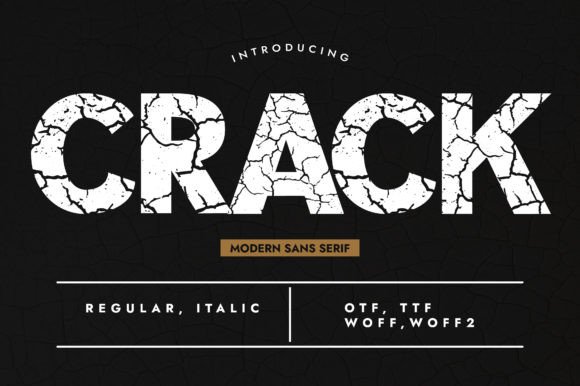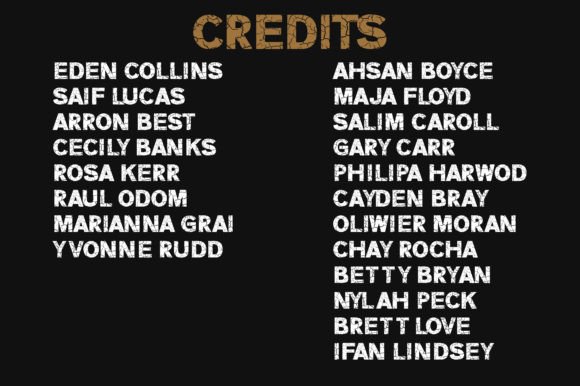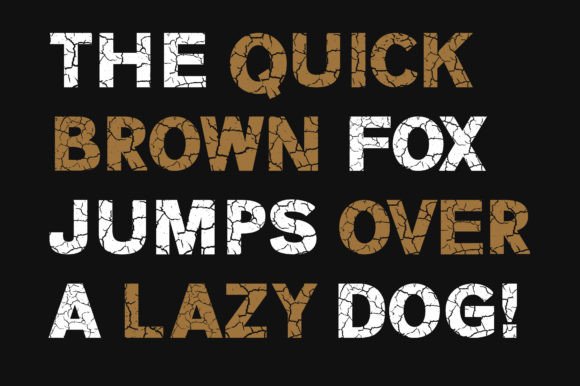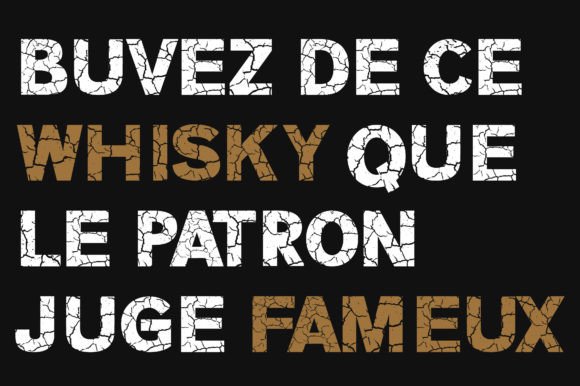
Crack Font: Grungy Sans Serif for Bold Headlines & Poster Designs
About the Crack Font
We are excited to introduce Crack Font, a must-have typeface for any serious designer. Crack is a modern, revolutionary, and textured sans serif typeface. The grungy textures applied to its glyphs give it a huge power to grab the eye’s attention. for that reason it can be used in heading, large scales banner, posters, etc. it can suit many themes such as action movie titles, games titles, posters, horror themes, Halloween, or any design that require a unique grungy textured look.
Crack Font’s bold, rebellious personality makes it ideal for headlines, posters, and branding projects needing a strong visual impact. It excels in large-scale applications where its textured glyphs are highly visible, such as movie titles, game art, or edgy apparel designs. Avoid using Crack for body text or UI elements; its highly textured nature compromises readability in smaller sizes or continuous text.
Pairing Crack with a clean sans-serif like Futura or a classic serif like Garamond creates a compelling contrast. The clean lines of these fonts balance Crack’s raw energy, allowing the textured sans-serif to truly stand out. For a more cohesive yet varied aesthetic, consider pairing it with a geometric sans-serif such as Montserrat.
This font’s grungy aesthetic works best for brands projecting a powerful, rebellious, or edgy image. It is less suitable for projects requiring sophistication or elegance.